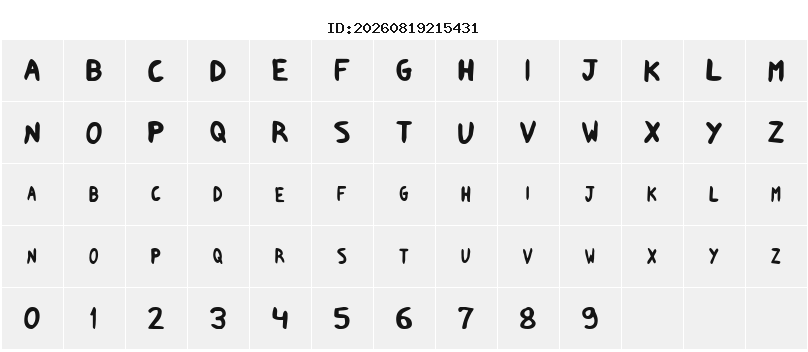
• Font Name: Shark Supah FX
• Font Style: Shark Supah FX
• Full Font Name: Shark Supah FX
About Shark Supah FX.ttf
Shark Supah FX.ttf is a modern, elegant sans-serif font designed for ultimate readability and visual harmony. Perfect for branding, headlines, web design, and print materials.